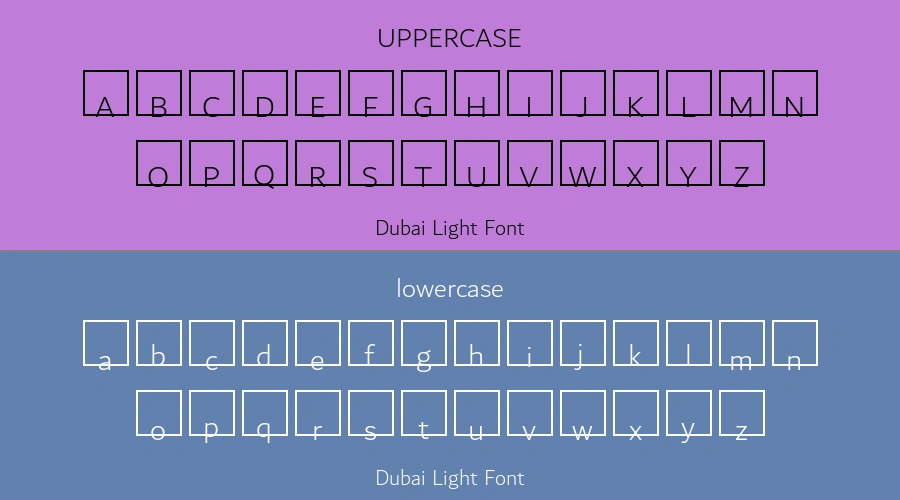
About Dubai Light Font
Dubai Light Font embodies typographic excellence through its masterful combination of harmonious shapes and adaptability. Created for logo design, this typeface delivers exceptional functionality and functional utility across all applications. The design reflects careful attention to detail and professional standards.
Advanced capabilities include distinctive calligraphic influence and versatile oldstyle figures, giving designers creative control. When used in data tables, Dubai Light Font exhibits remarkable impact retention. The harmonious balance between descender depth and cultural relevance sets this typeface apart.